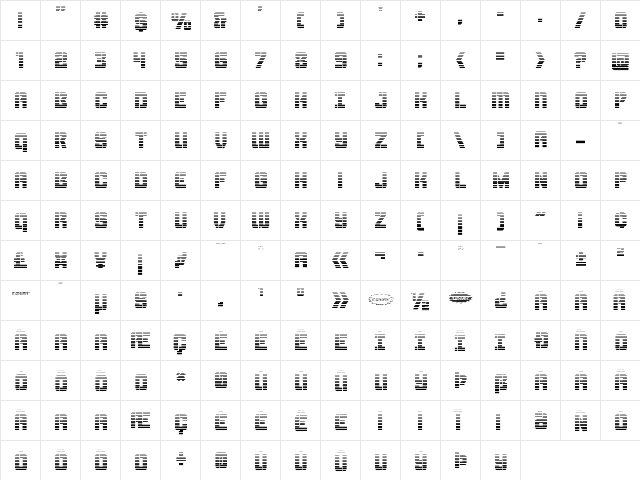
Thunder Trooper Gradient Regular
Design Context for Thunder Trooper Gradient Typeface
Thunder Trooper Gradient is a composed and adaptable typeface that performs quietly and consistently across a wide range of design contexts.